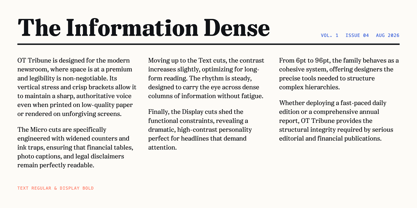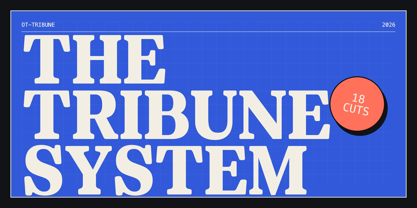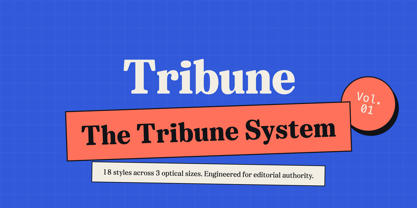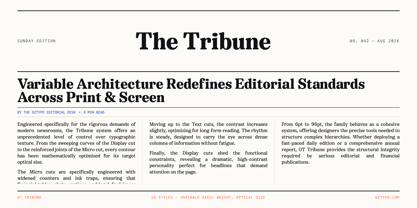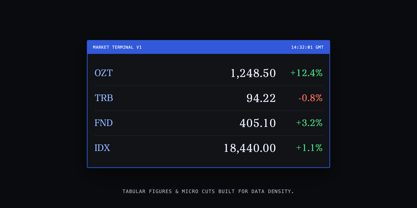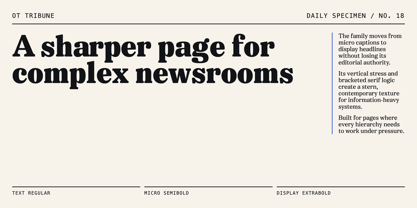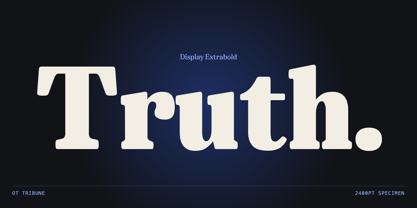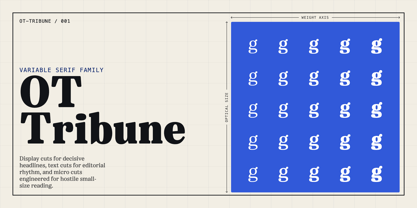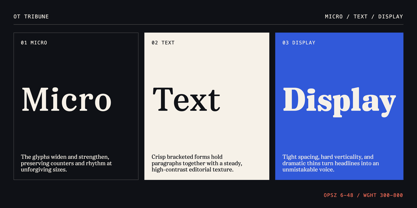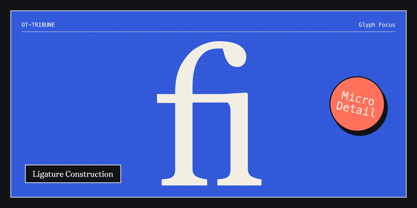
OT Tribune
The OT Tribune Font Family was designed by Oussama Horchani, Zachary Schwartz and published by OzType.. OT Tribune contains 19 styles and family package options. More about this family
OT Tribune represents a modern evolution from the nostalgic warmth of traditional publishing, embracing a sharp, mechanical authority. Designed as an expansive variable system, it adeptly meets the dynamic demands of contemporary editorial platforms. The architecture features a strict vertical axis and crisp, bracketed serifs that effectively guide the reader's eye along the baseline. The design strategy evolves across its optical range: the Text cuts provide a crisp, high-contrast rhythm ideal for standard reading environments, while the Micro cuts are engineered for structural resilience, featuring robust hairlines, widened counters, and generous apertures to withstand the challenges of low-resolution screens. In contrast, the Display styles adopt aggressively tight spacing, enhancing the dramatic high-contrast interplay between delicate thins and bold heavy stems. Unsentimental and highly pragmatic, this type family delivers the precise typographic infrastructure essential for complex newsrooms, financial reporting, and dense broadsheet layouts, making it a versatile choice for branding, web design, and editorial use.